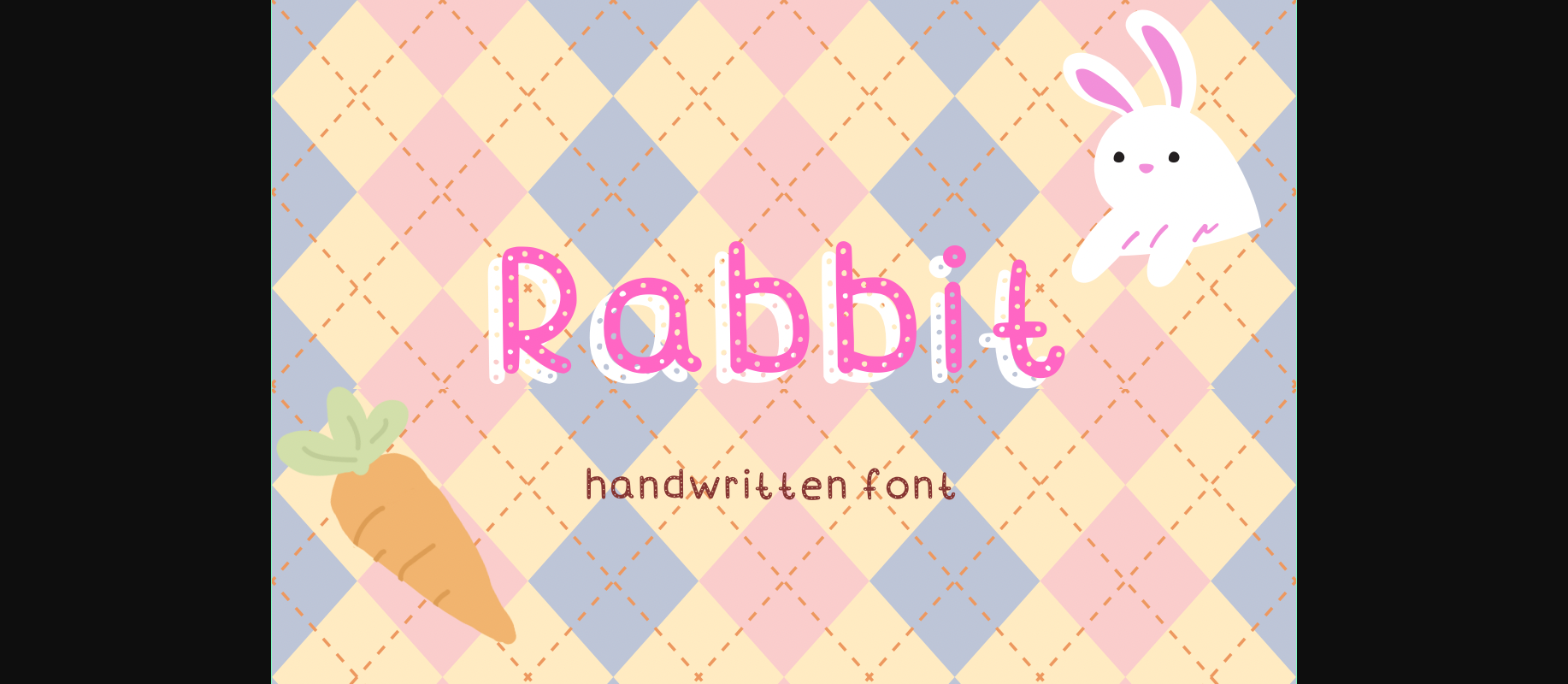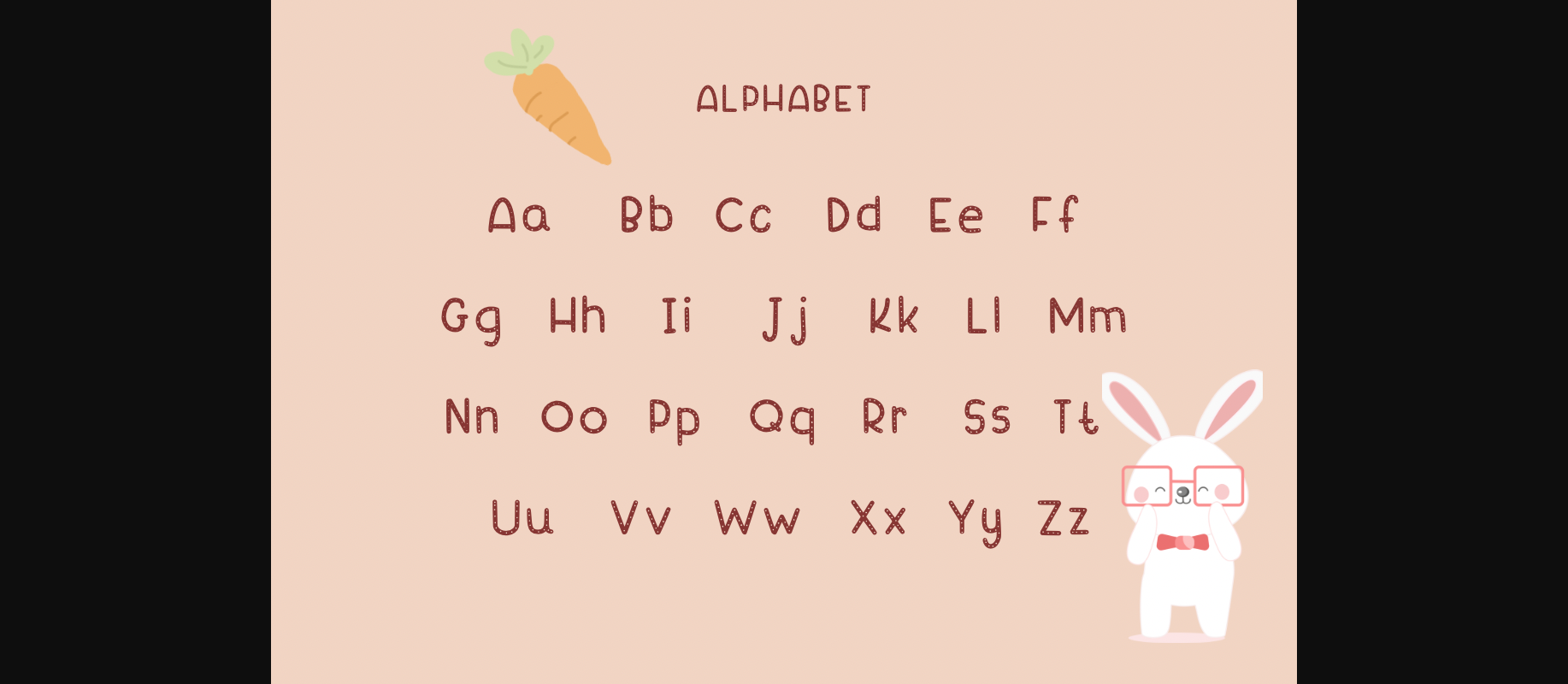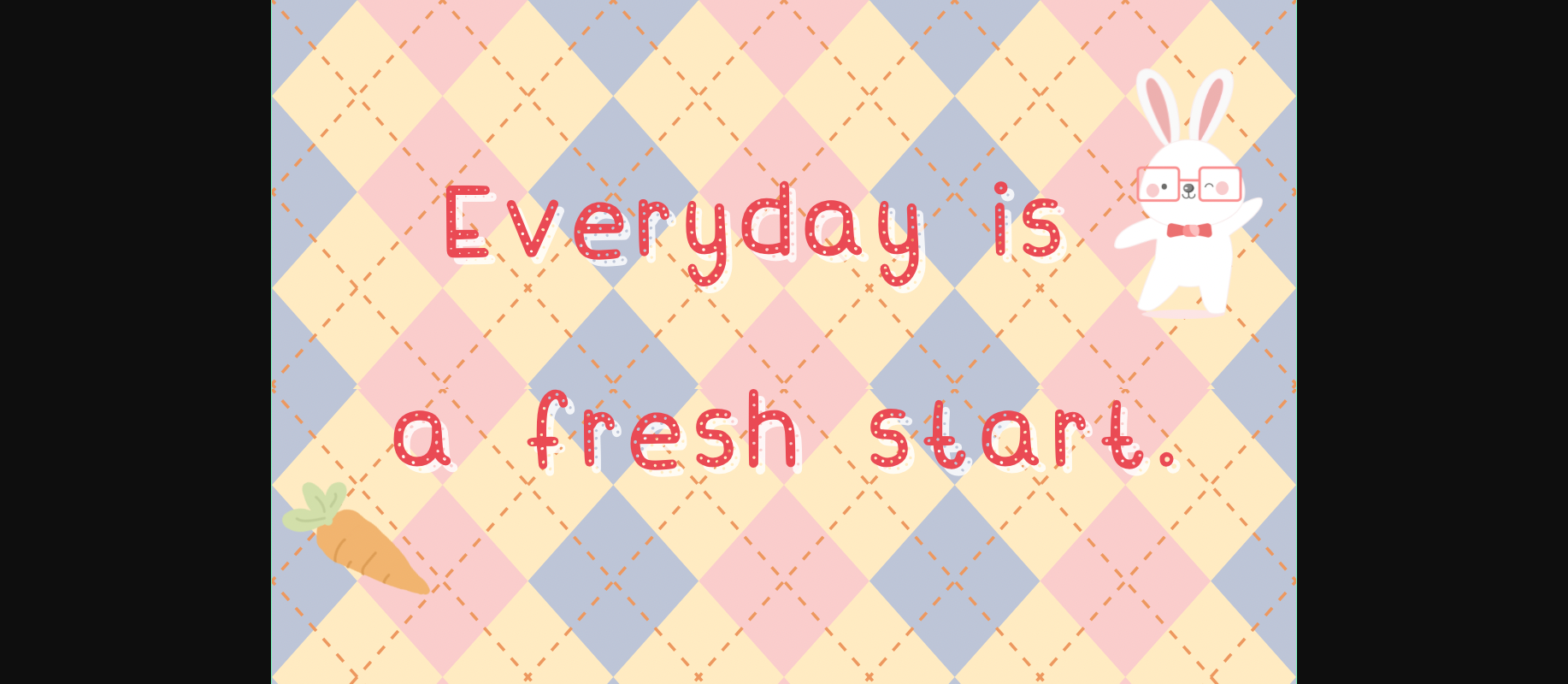
About Rabbit Font
Rabbit is a cute, fun, and simple decorative font. Its friendly feel makes this font incredibly flexible, fitting a wide range of contexts. Have fun with this trendy font and explore its endless variations. Add it to each of your creative ideas, and notice how it makes them stand out!